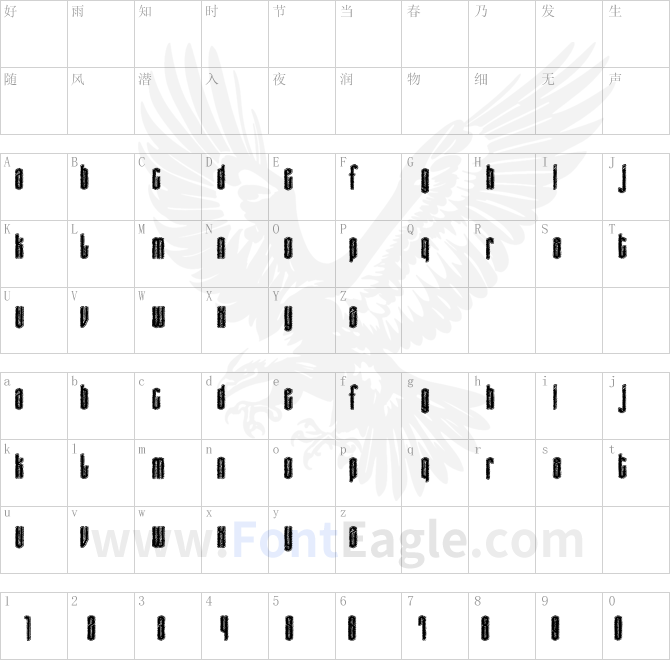
Birthmark is a great font, widely used in graphic design, single-page menu design, poster design and other fields, and is deeply loved by designers.Birthmark download.